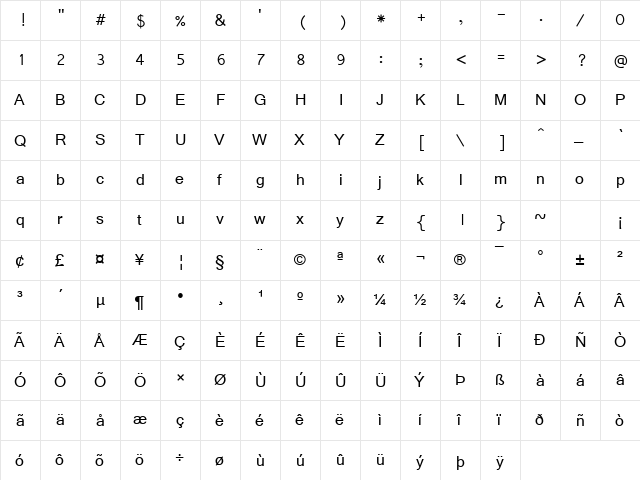
Vrinda Normal
| Designer | Raghunath Joshi (Type Director), Vinay Saynekar |
Design Context for Vrinda Typeface
Vrinda offers clean, dependable letterforms without strong stylistic allegiance, making it a practical choice for designers who need flexibility.